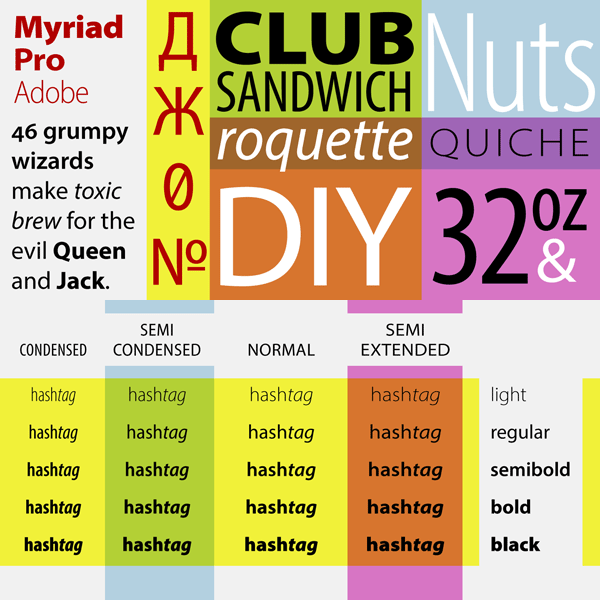
The Myriad Pro font family, an Adobe Originals design.
Myriad was first published in 1992 as an Adobe Originals typeface design. The team of Robert Slimbach, Carol Twombly, Fred Brady, and Christopher Slye has worked on this sans serif font. Myriad quickly became very popular for the use as legible text font as well as display font.
The Myriad Pro font family is a special OpenType release with an extended character set that also supports Greek and Cyrillic glyphs. Myriad Pro comes with additional old style figures and the support for all common Latin-based languages has been improved by the design team. The entire type family consists of 40 fonts in total (including condensed, normal, and extended widths in several weights and italics). Its sans serif typeface offers clean and open shapes with a harmonious and humanistic letter treatment of proportions.
The Myriad Pro font family works excellent in long and small texts, while its different weights and widths provide a great variety of characteristics for display use.